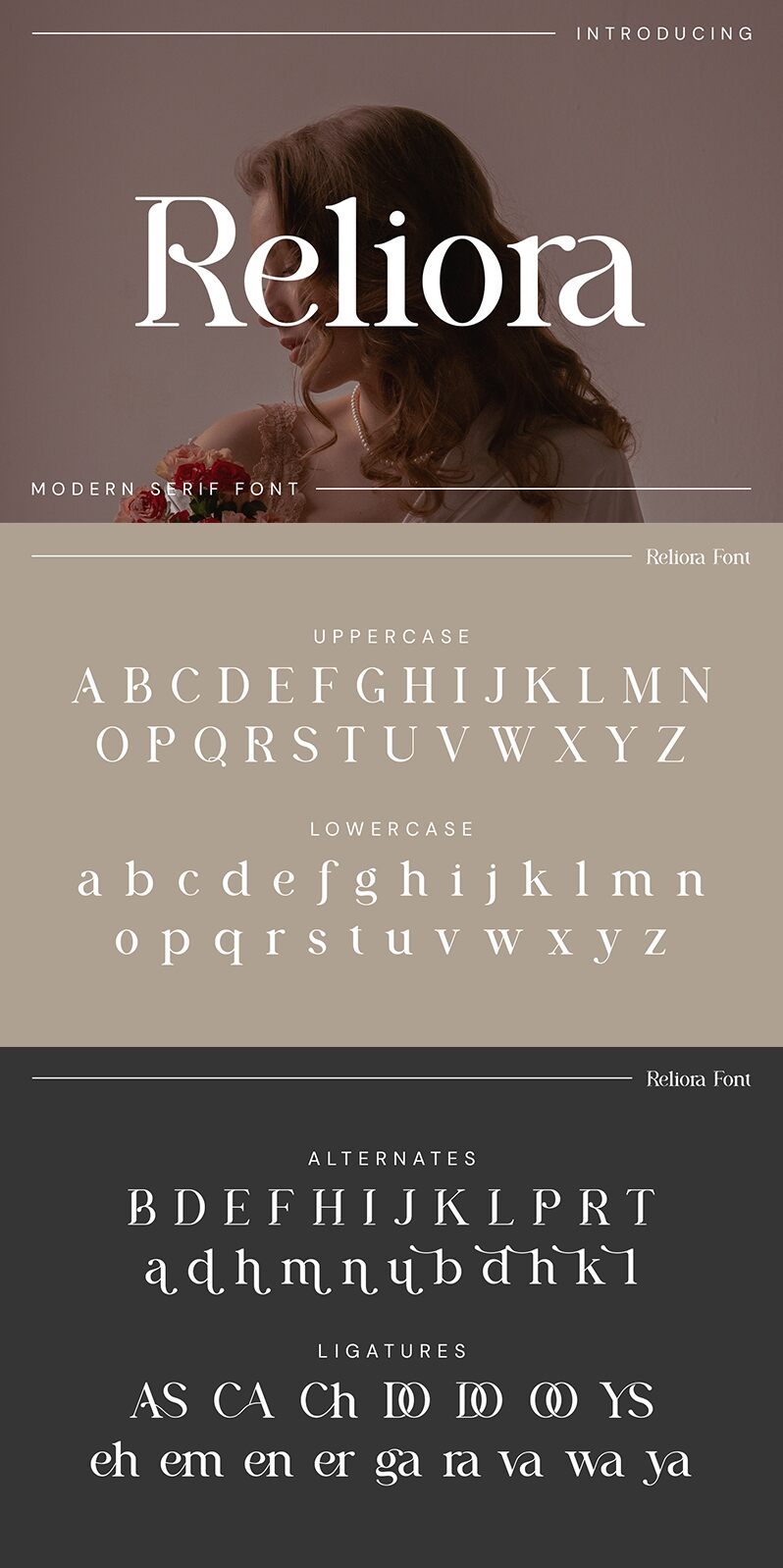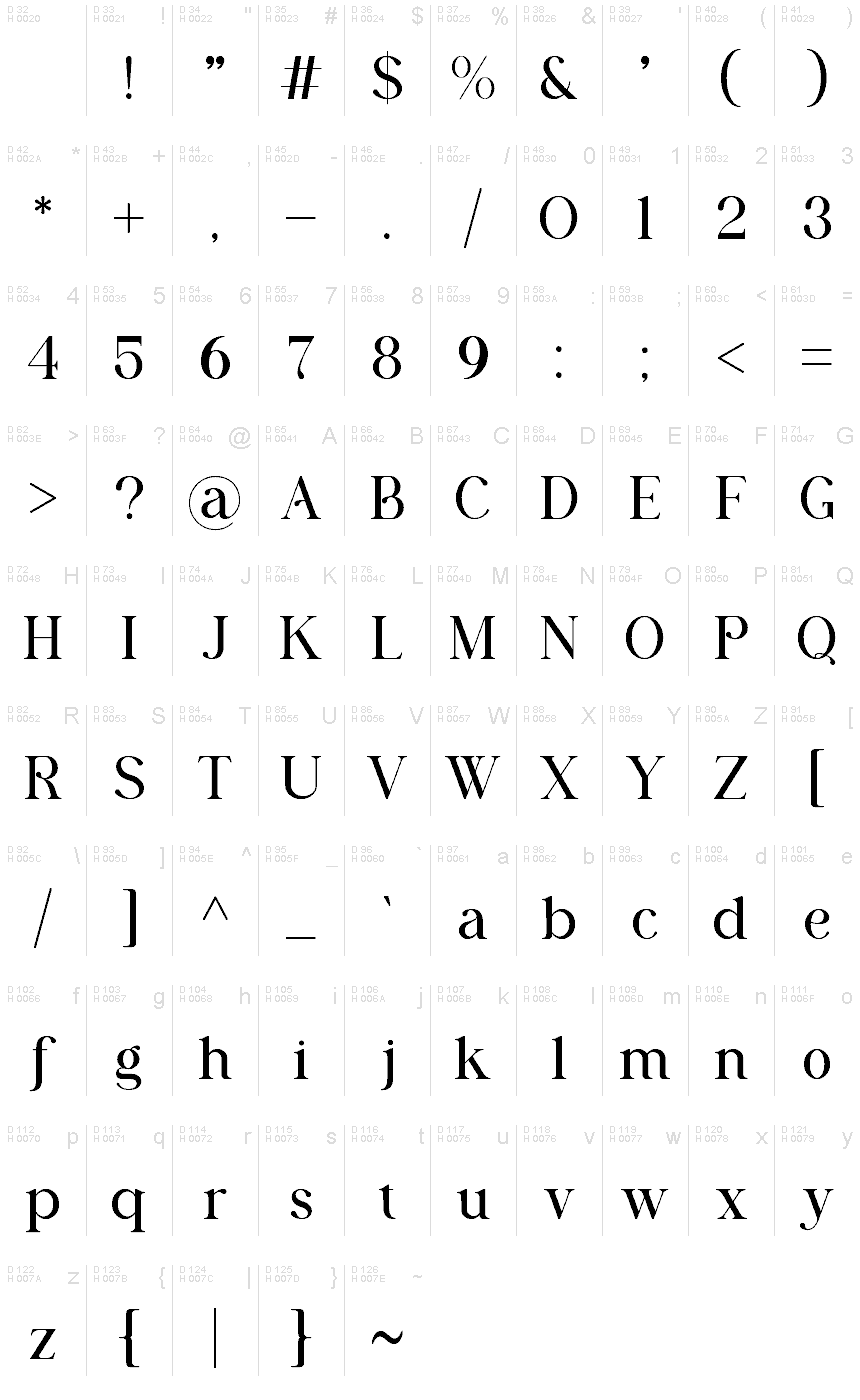
Reliora
Reliora font designed by Ahmad Riqi is a refined and sophisticated serif font with an elegant classic aesthetic. It has a timeless appeal stemming from its neat, harmonious letter designs that give it the refined appearance of a popular prestigious text font style. It is versatile and works equally well for long or short texts.